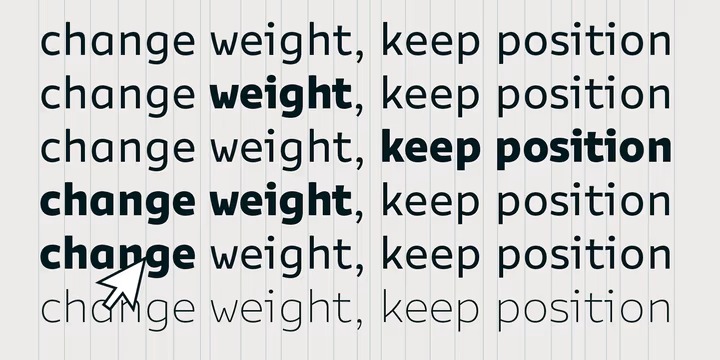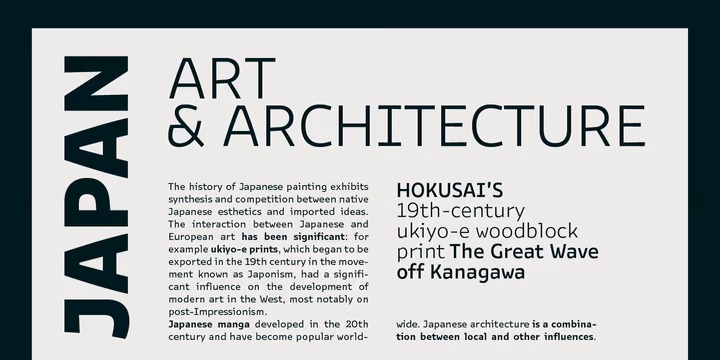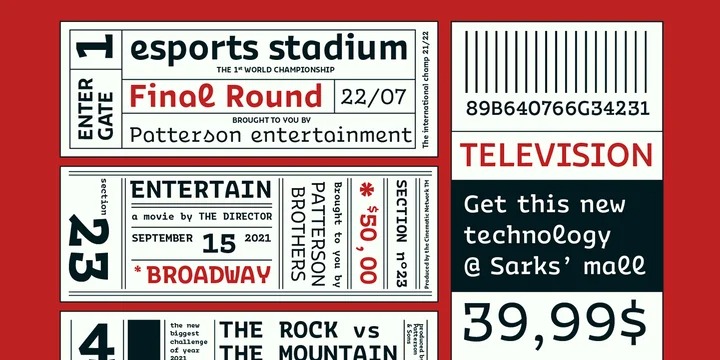
Bakemono Stereo Font Family
Bakemono Stereo Font
This is a new sans serif typeface created by Zetafonts with a modern yet grotesque style. The name of the typeface comes from the Japanese shape-shifter yokais that could change their form freely between human and animal, and aptly describes the metamorphic nature of this wide superfamily coming in proportional, monospace and intermediate subfamilies. With a design mixing the expansion principles of the brush with the sharp technicality of typewriter and system fonts, Bakemono can both excel at text size in its regular widths optimized for legibility as well as owning the page at display size with its uncommon design details.
Bakemono reflects its multicultural nature with its extended latin + cyrillic charset, soon to be expanded with Bakemono Arabic (exploring the fascinating world of monospaced arabic script) and Bakemono Kana (our first experiment in cjk scripts).